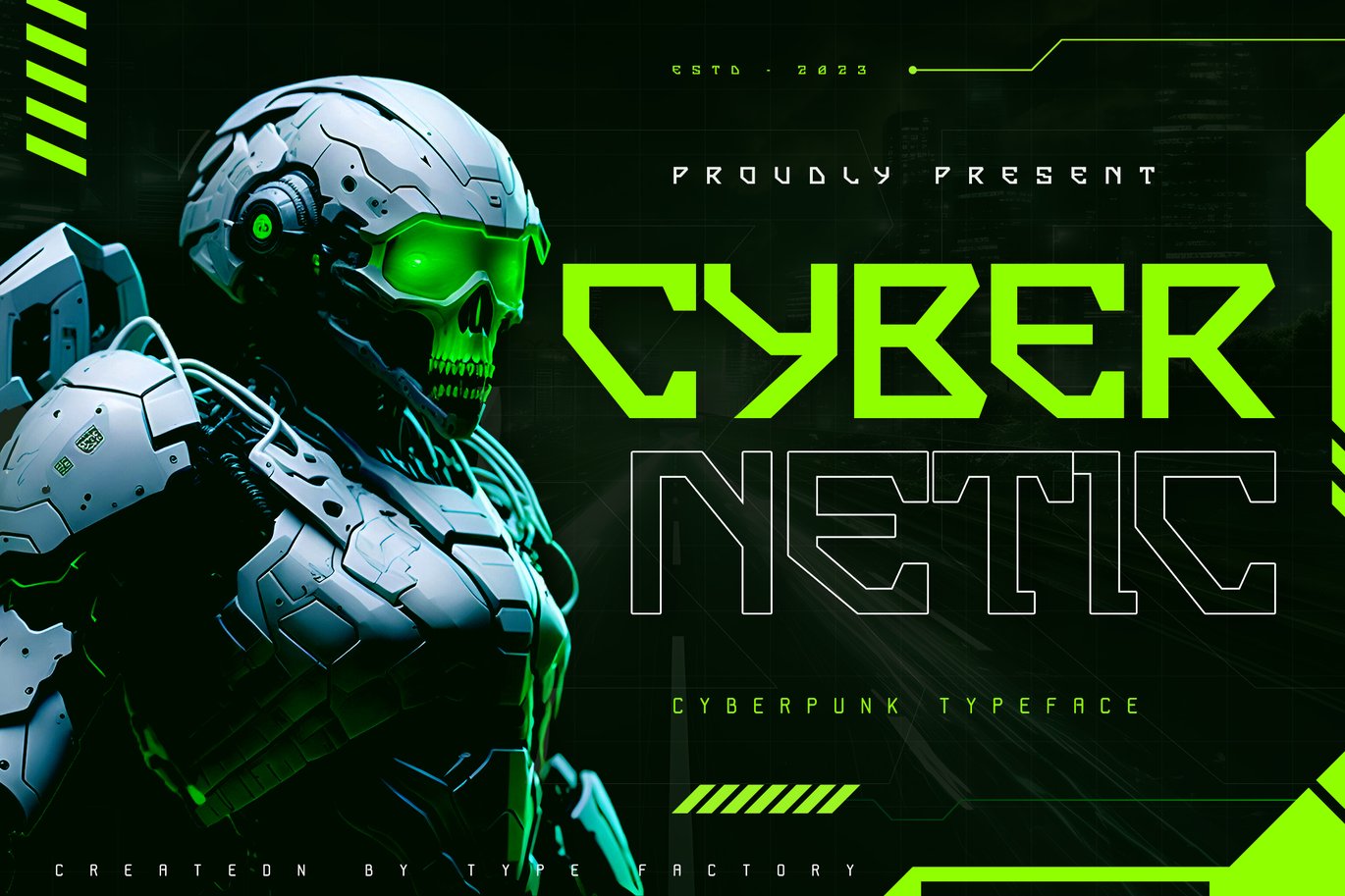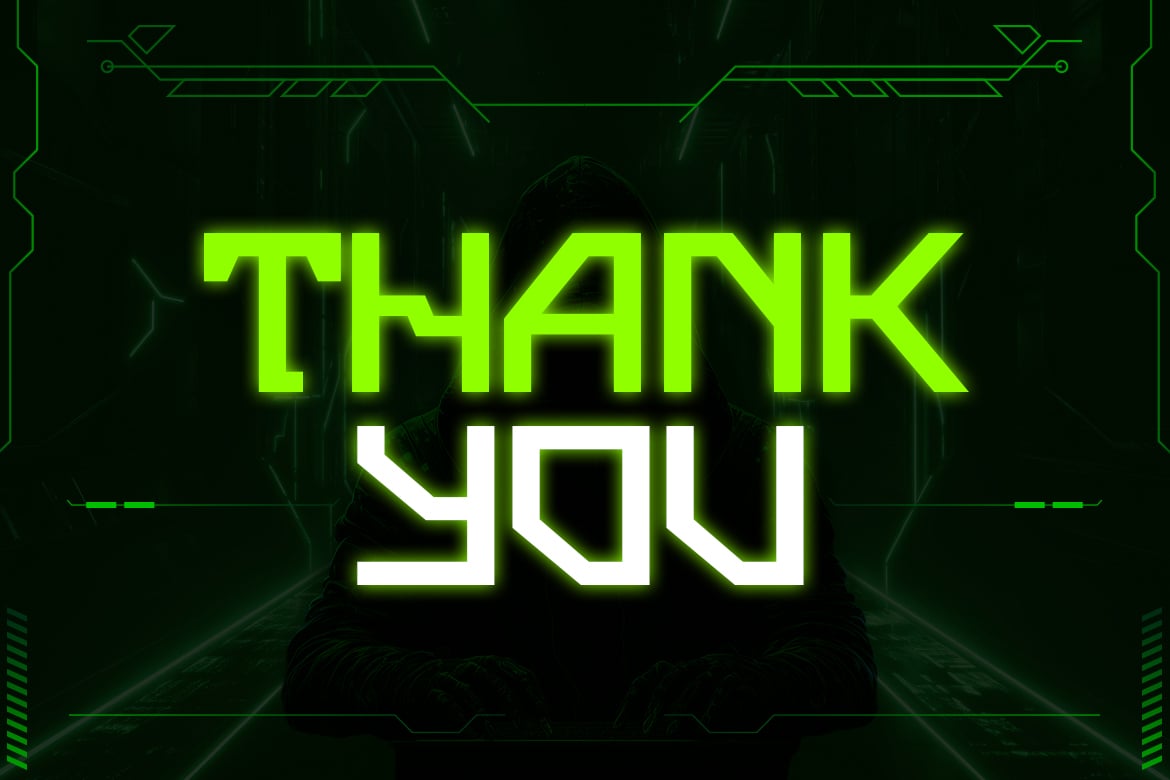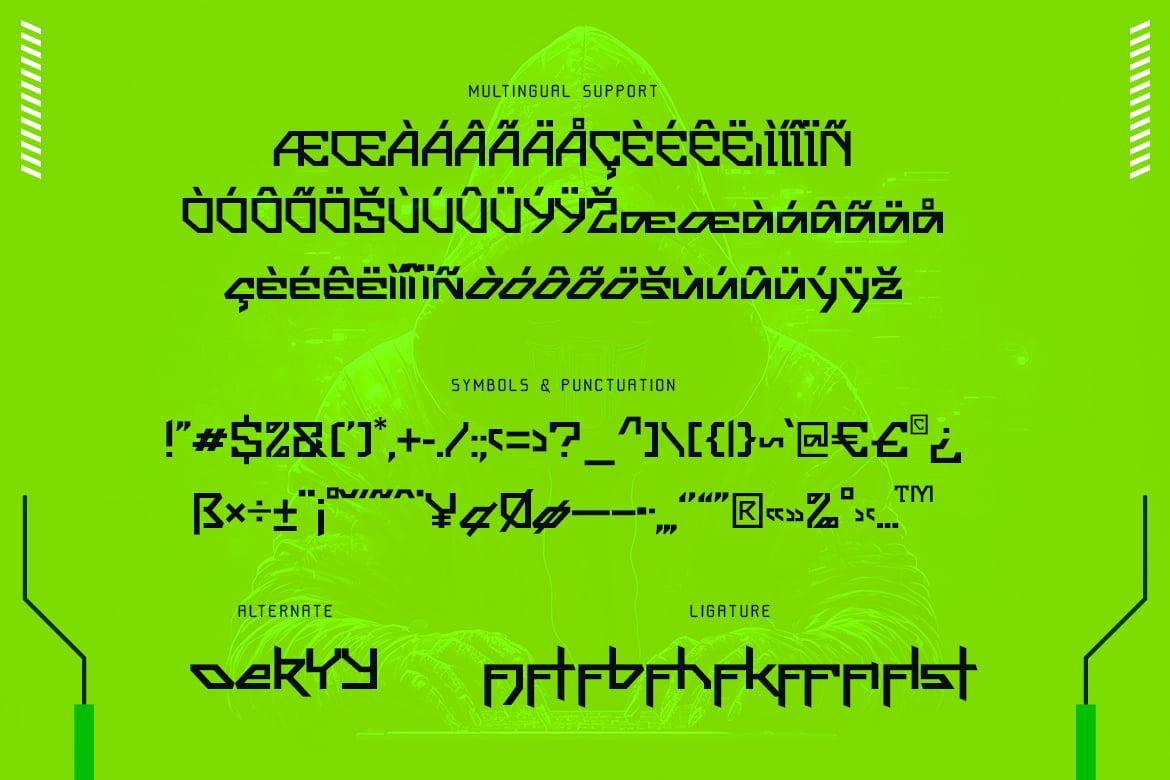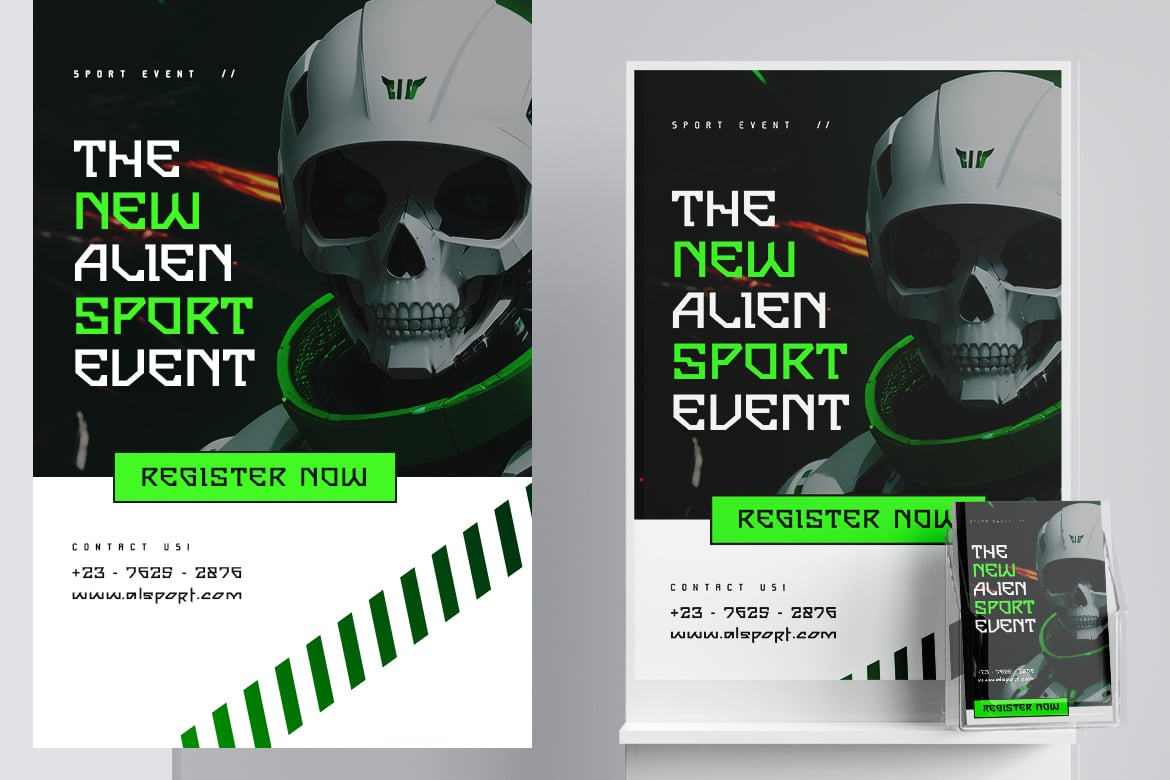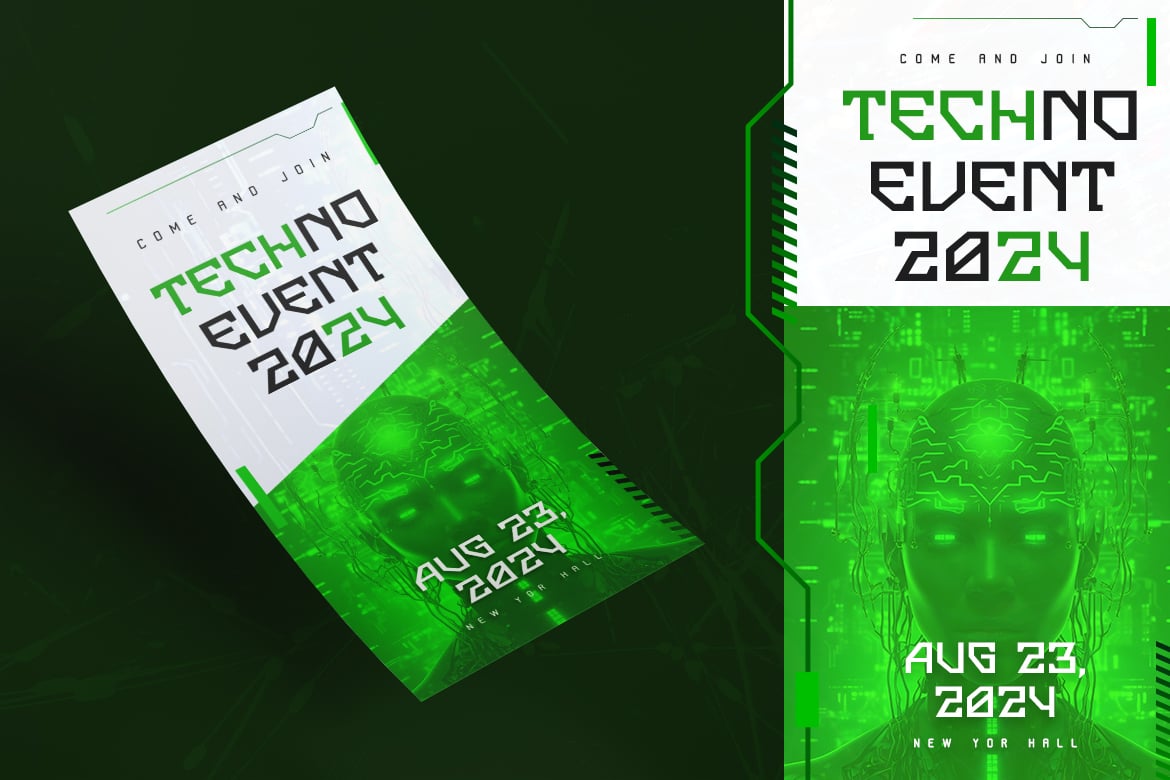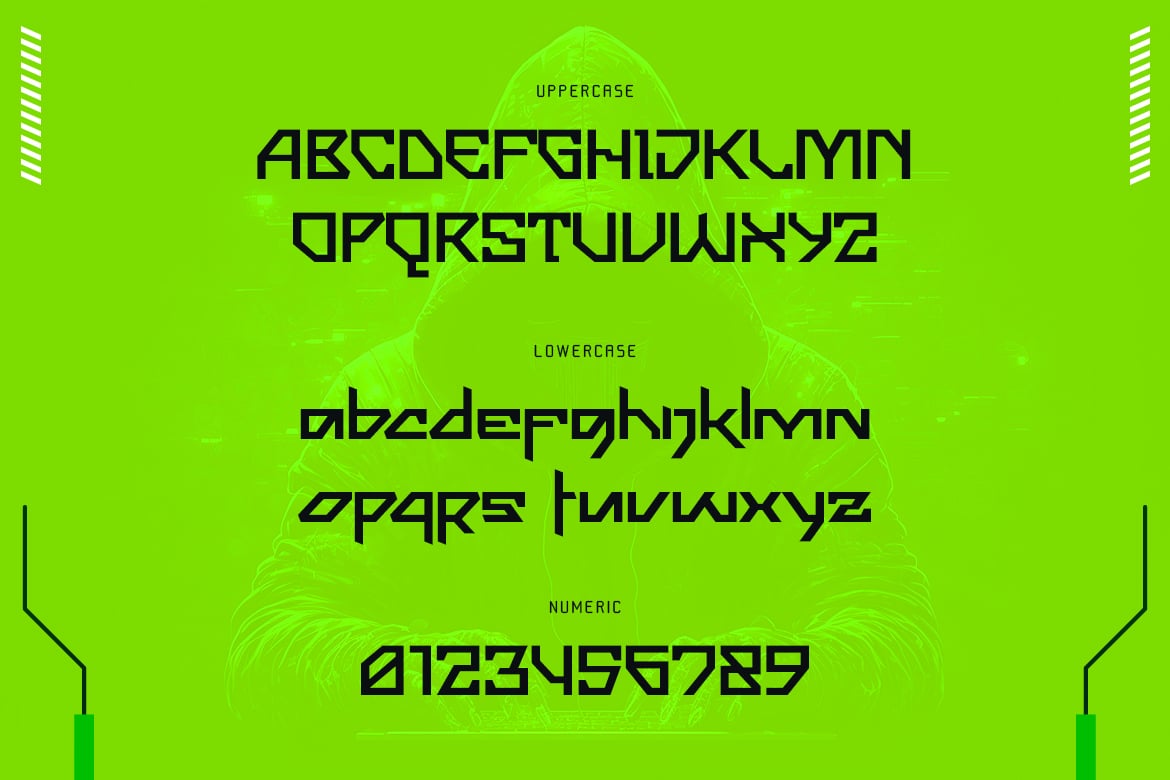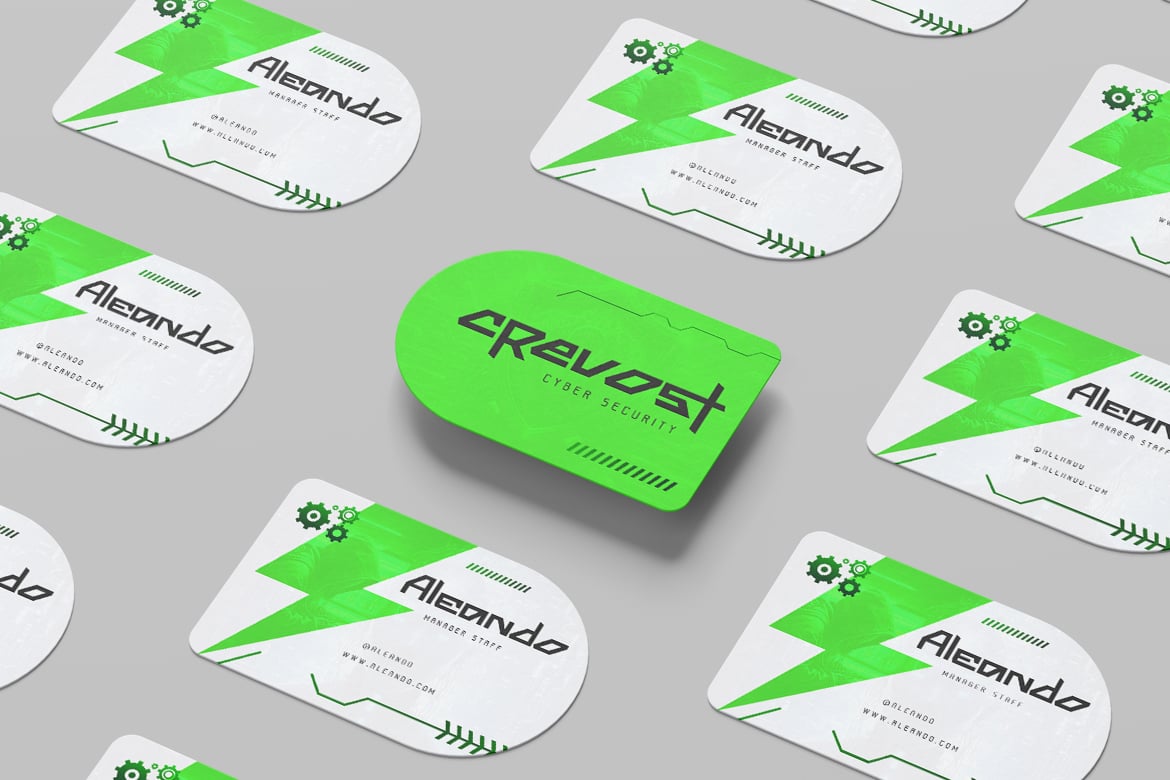
Cybernetic – Cyberpunk Typeface
Cybernetic is a cutting-edge cyberpunk typeface that encapsulates the futuristic and dystopian essence of the cyberpunk genre. With its sharp, angular lines and high-tech aesthetic, Cybernetic is perfect for sci-fi posters, gaming interfaces, tech branding, and digital art. This typeface radiates a sleek, neon-lit vibe, evoking the energy of bustling metropolises and advanced technology. Whether you’re creating visuals for a game, a movie, or a tech project, Cybernetic adds a bold, futuristic edge that commands attention.